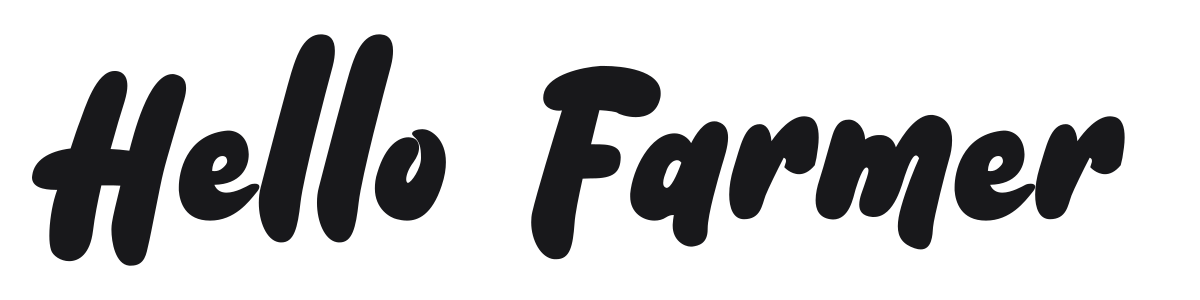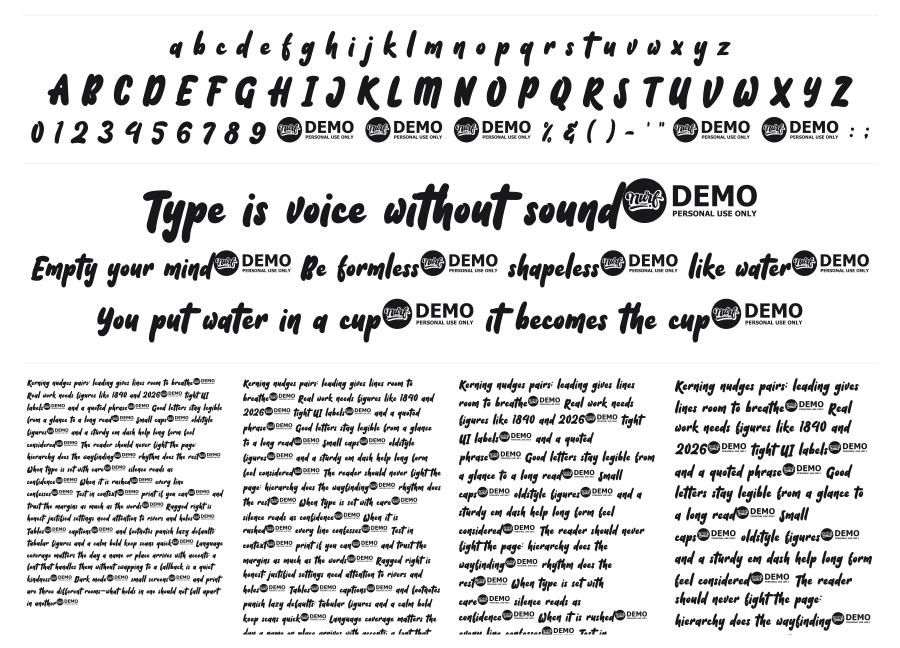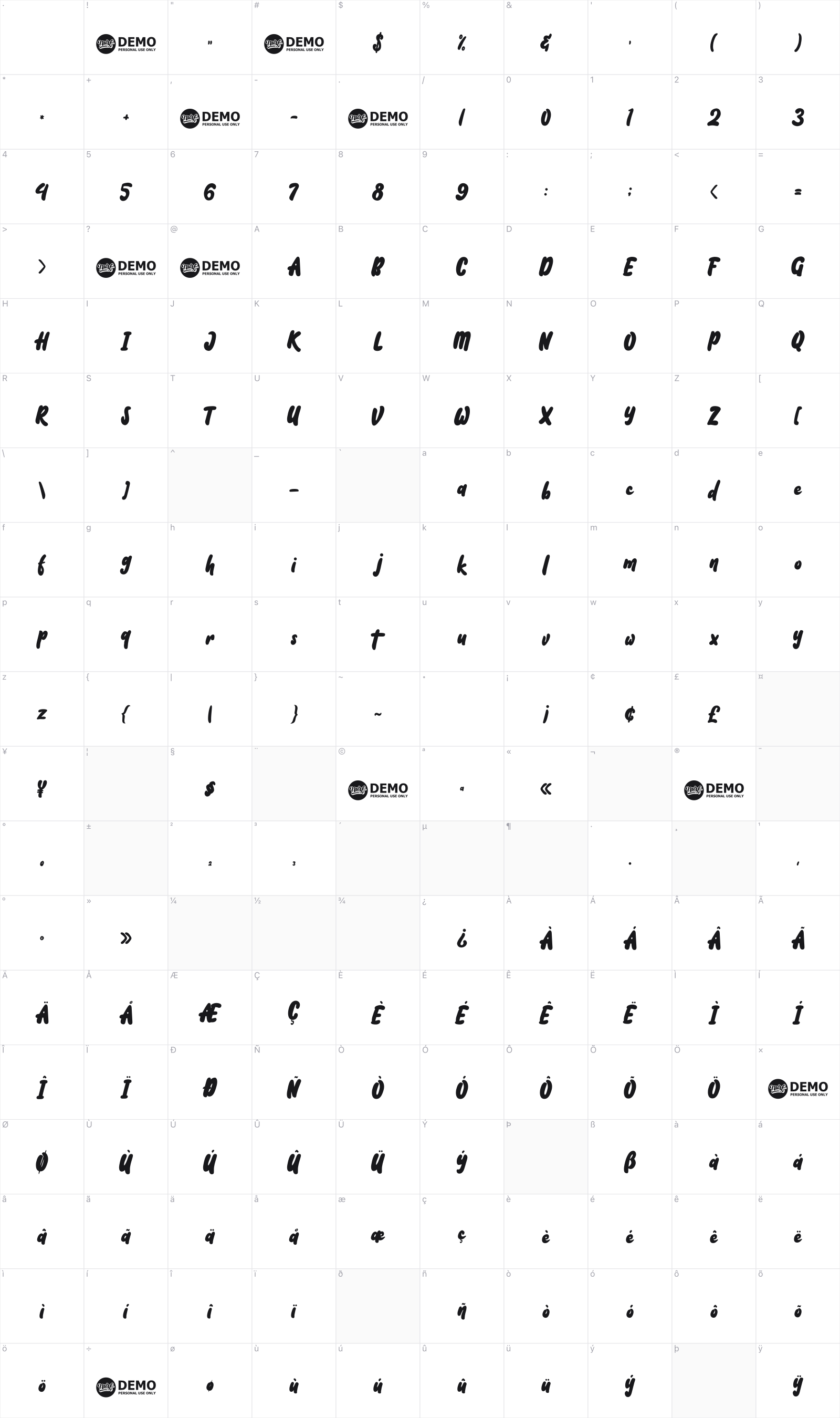
Hello Farmer
Hello Farmer is a bold, casual brush script with thick rounded strokes and a confident hand-lettered personality. The heavy weight and flowing connections give it an energetic, approachable warmth that works well for branding, packaging, and display headlines. It reads as authentically crafted rather than polished, which is exactly the point.